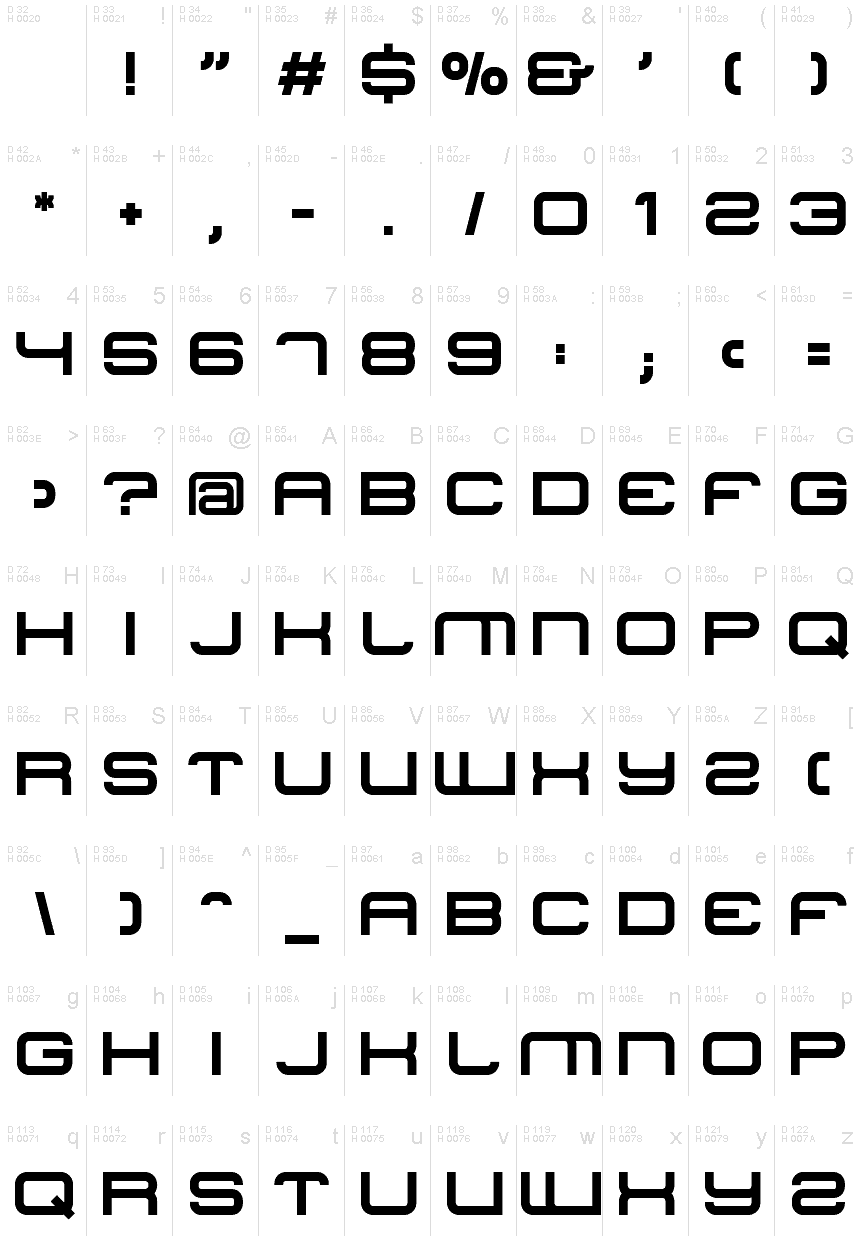
KROIGS
Kroigs font is a captivating display font designed by Enxyclo Studio. Its unique futuristic style captures attention with an expanded and modern geometric structure. Captivating yet readable, each letter displays a certain technical feel that shouts science fiction from afar. Straight lines, sharp angles, and inventively incorporated details can all be used to create industry-leading designs.
This free futuristic display font is ideal for logos, titles, posters, movie covers, product packaging labels, branding designs or editorial layouts. Use it for gaming designs such as video game cover design art or mobile app design patterns and backgrounds. Computer device advertising graphics related to laptops or smartphones will not go unnoticed thanks to this splendid typeface!